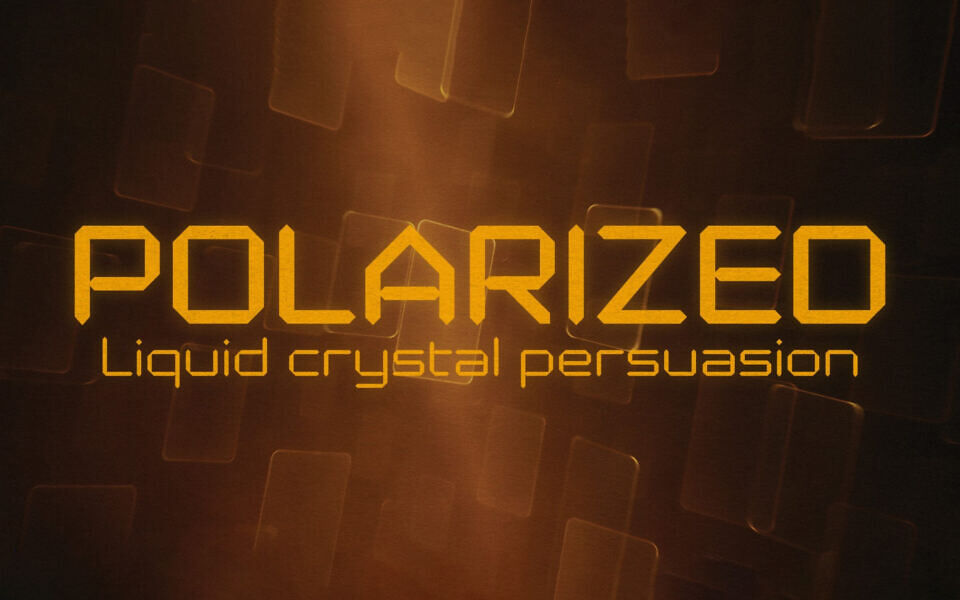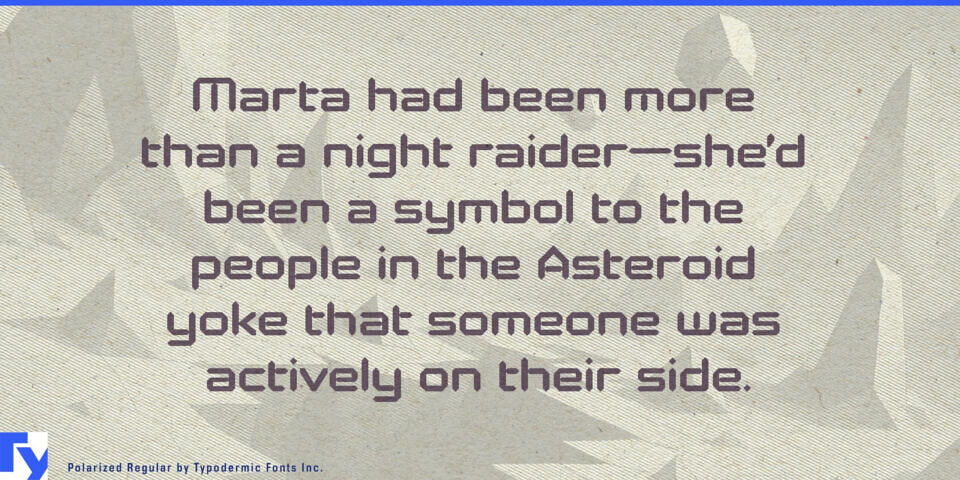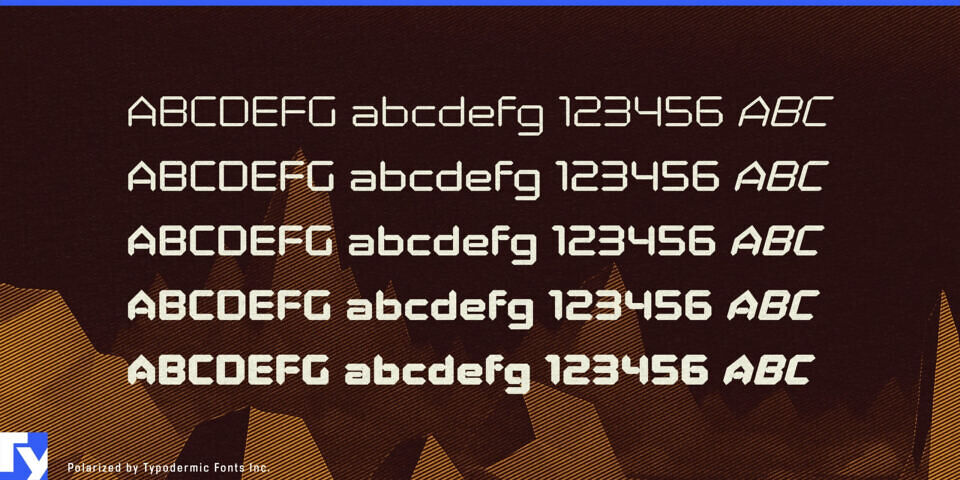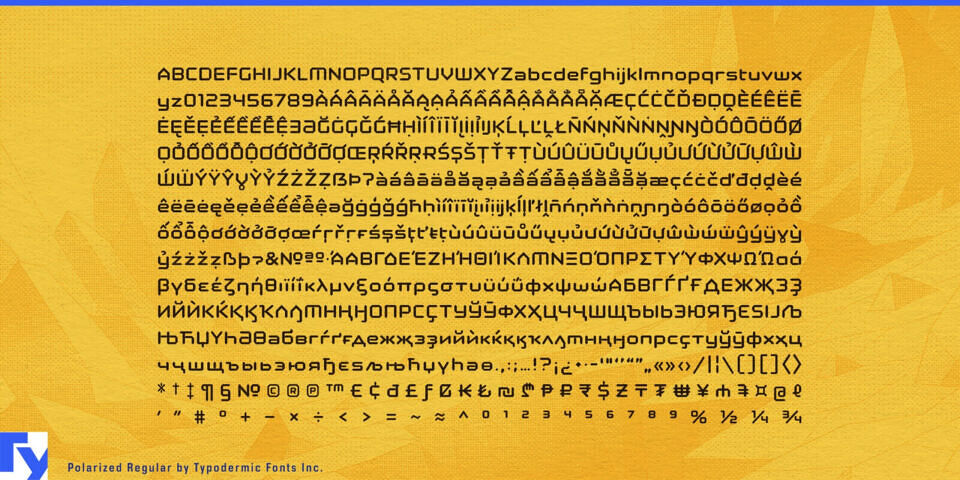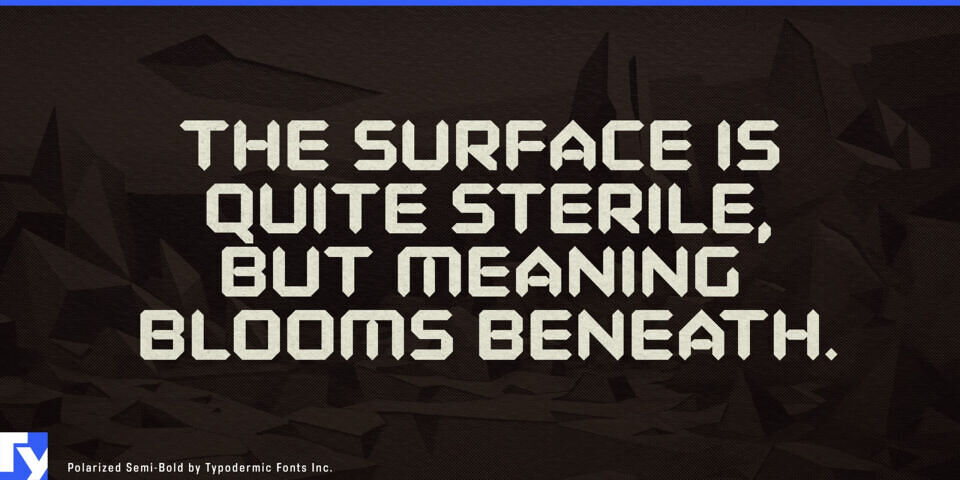
Polarized Font
Polarized takes the clean geometry of LCD readouts and retools it for modern design. Its defining feature—pointed stroke joins—cuts away excess weight where stems and crossbars meet, keeping each letter crisp and free of dark spots. This detail gives Polarized its signature look: engineered precision without the cold, rigid feel of a true segment display.
The squarish proportions and subtle corner softening make it ideal for tech and sci-fi projects, but it’s not locked into nostalgia. In Extra-Light, it’s sleek enough for futuristic UI elements and on-screen readouts; in Bold, it commands attention in posters, packaging, and gaming titles.